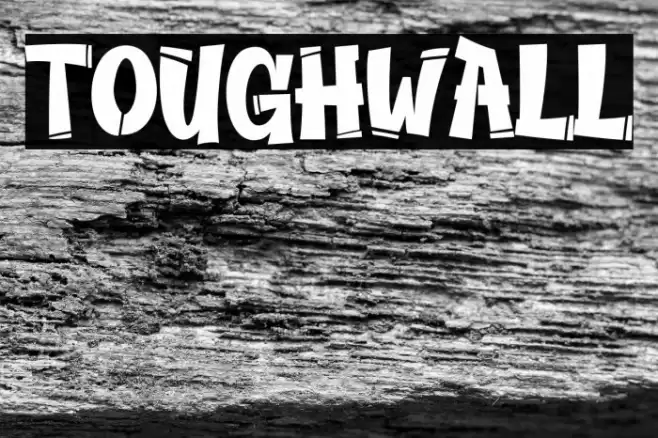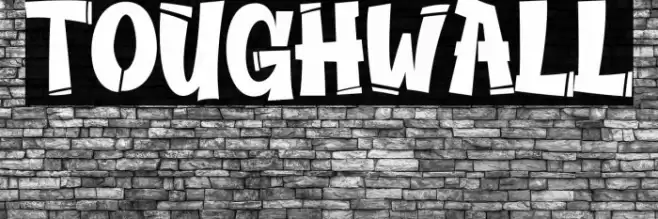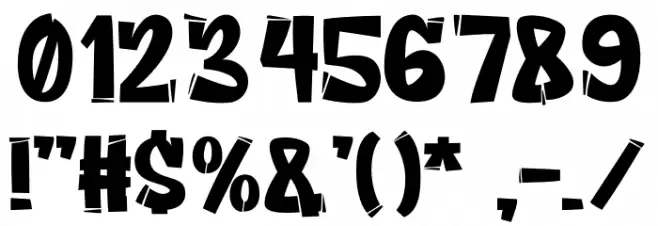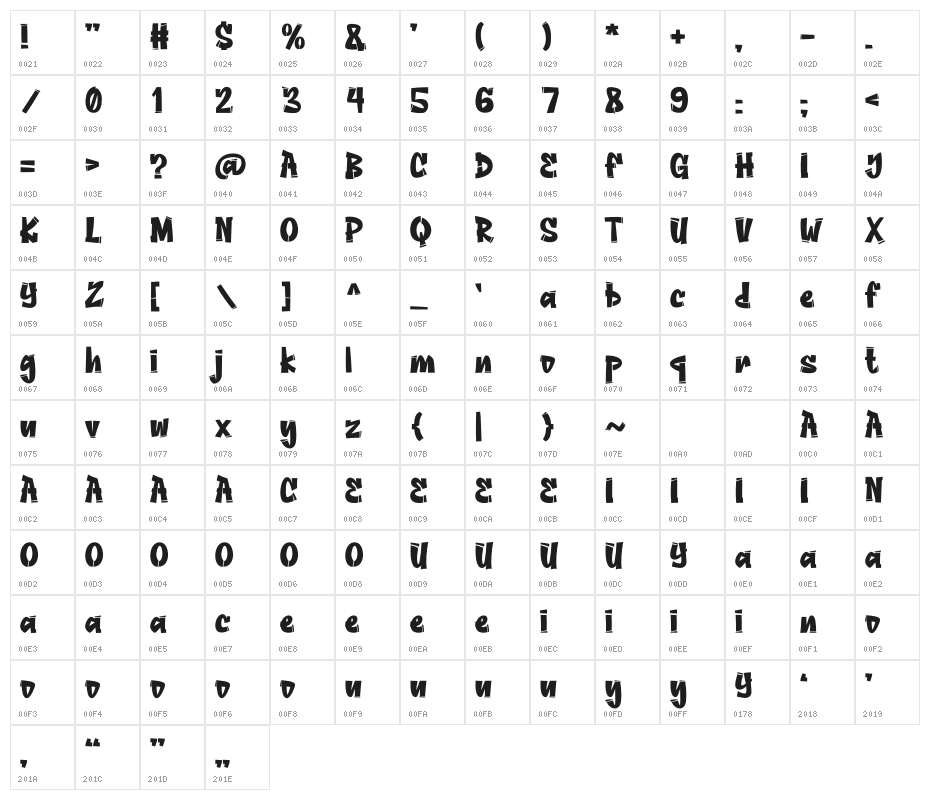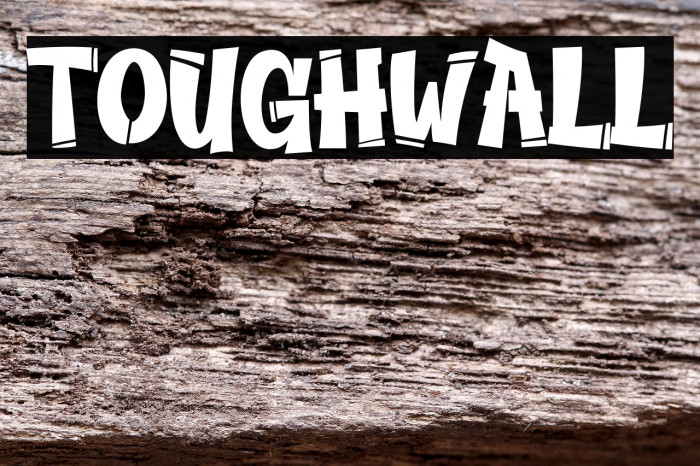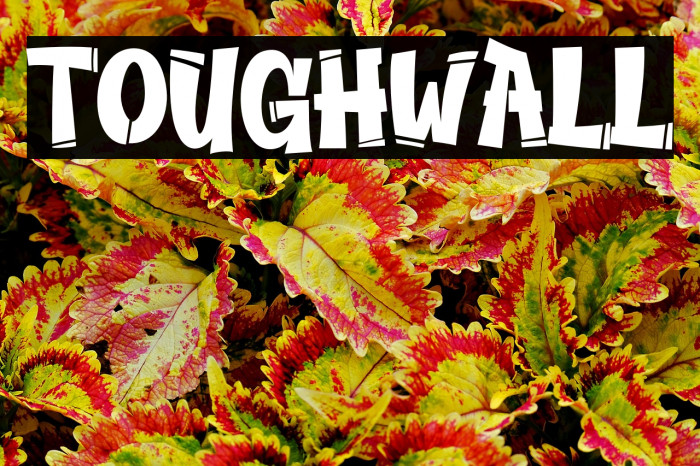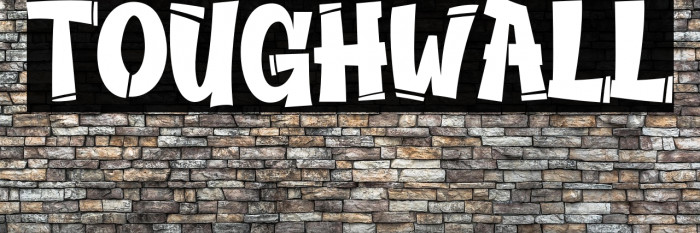
TOUGHWALL Font
TOUGHWALL Description
This font exhibits a bold and dynamic style, characterized by its thick, uneven strokes and playful, graffiti-like appearance. The letters are slightly tilted and irregular, giving them a sense of movement and energy. The uppercase and lowercase letters maintain a consistent style, with exaggerated curves and sharp angles that create a visually striking effect. The numbers and special characters follow the same design principles, ensuring a cohesive look across all elements. This font's unique style makes it ideal for projects that require a bold and unconventional aesthetic.
A bold, graffiti-inspired font with dynamic, irregular strokes from Uncategorized fonts.
- Proposed Projects: Ideal for street art designs, urban-themed posters, music album covers, and edgy branding projects.
- Overall Style: Modern, Urban